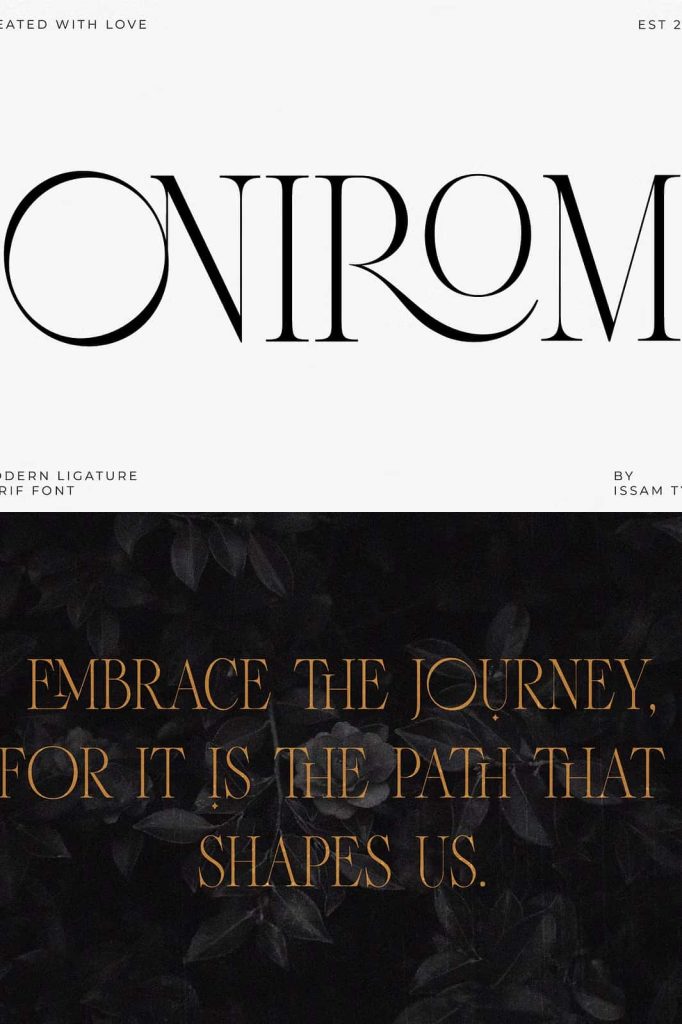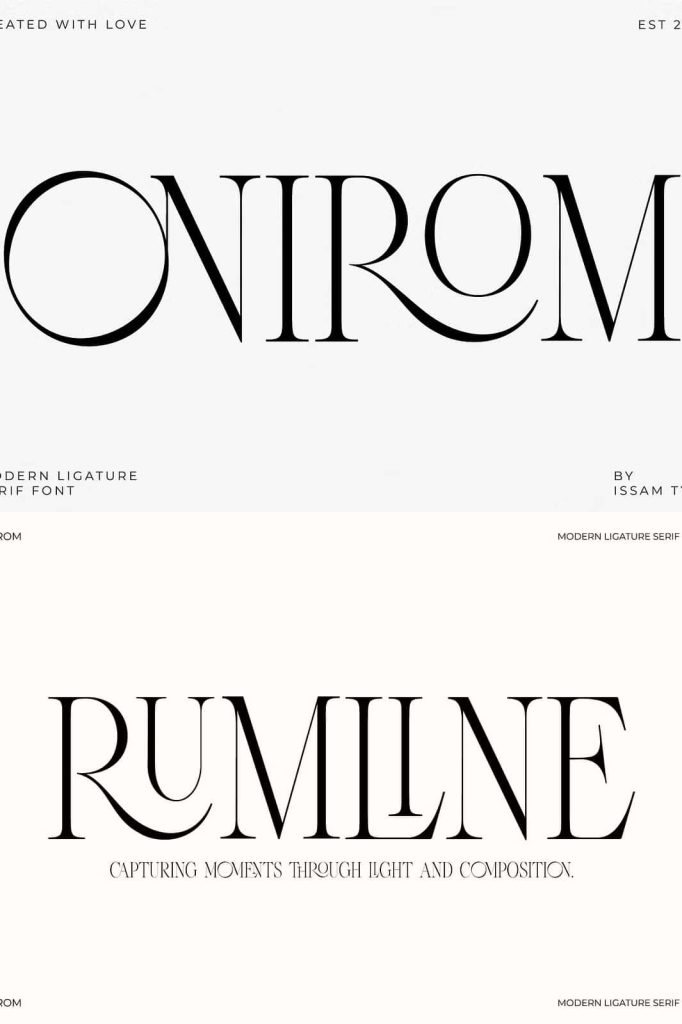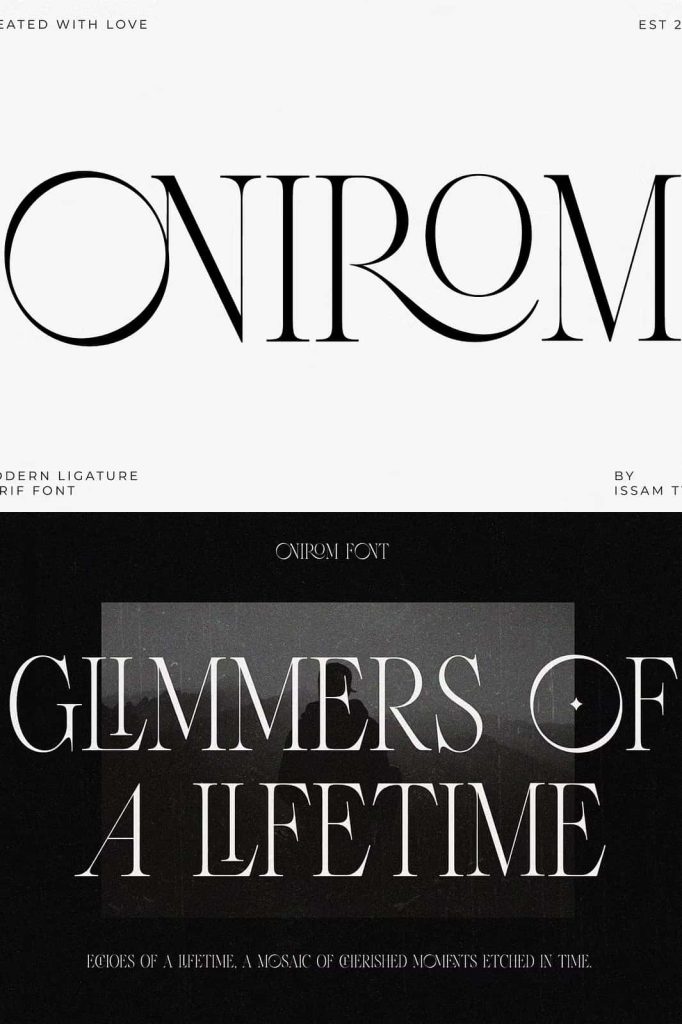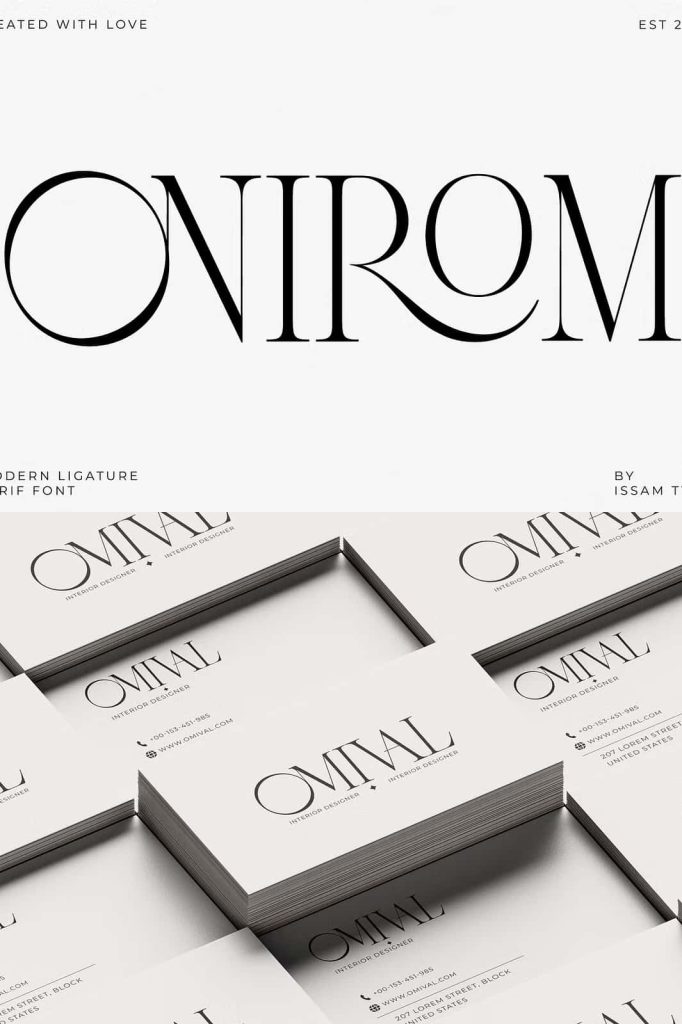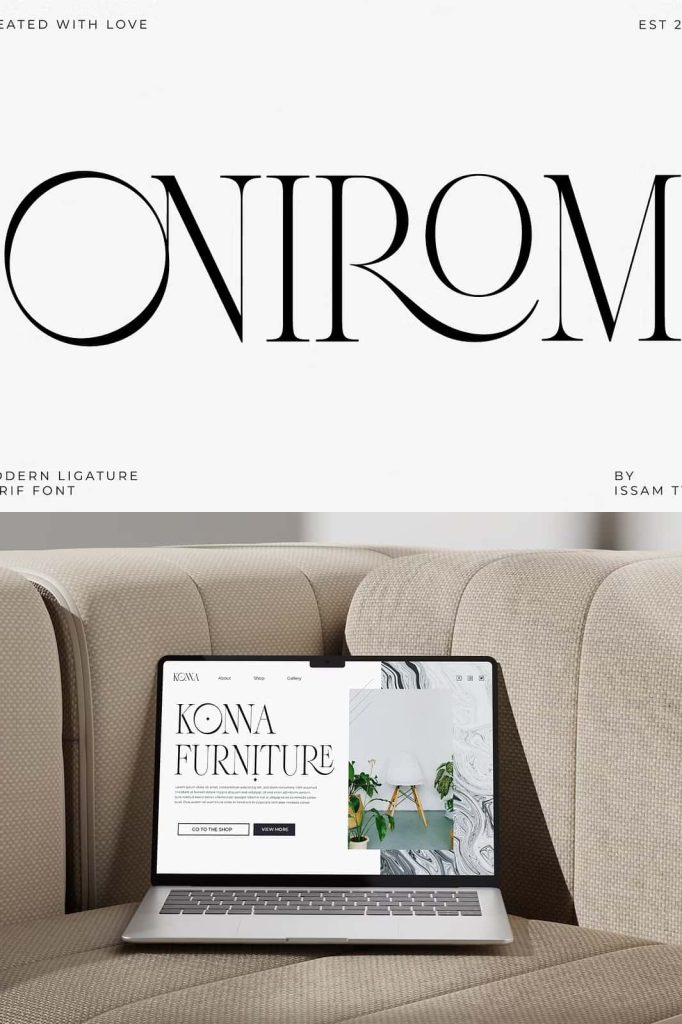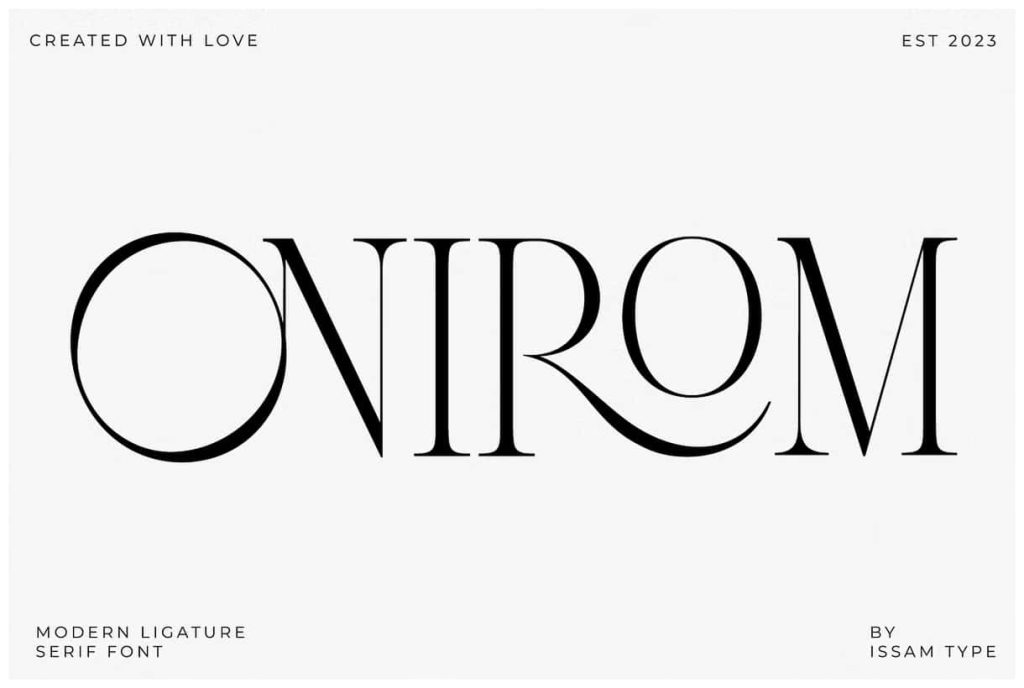
Onirom – Modern ligature serif fontleastedMay 4, 2025Fonts Onirom is a Modern ligature serif font comes with joining ligatures that give it a fancy and unique style. Download